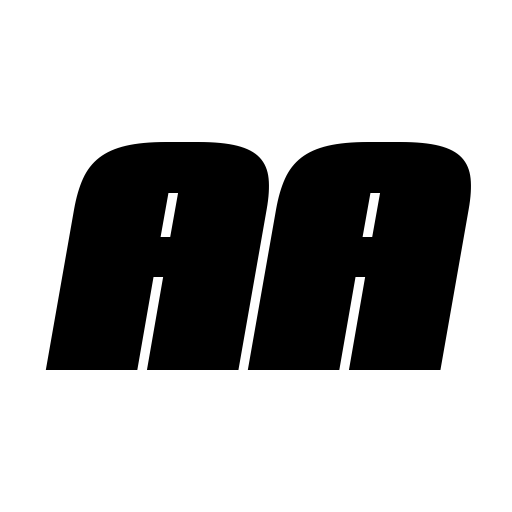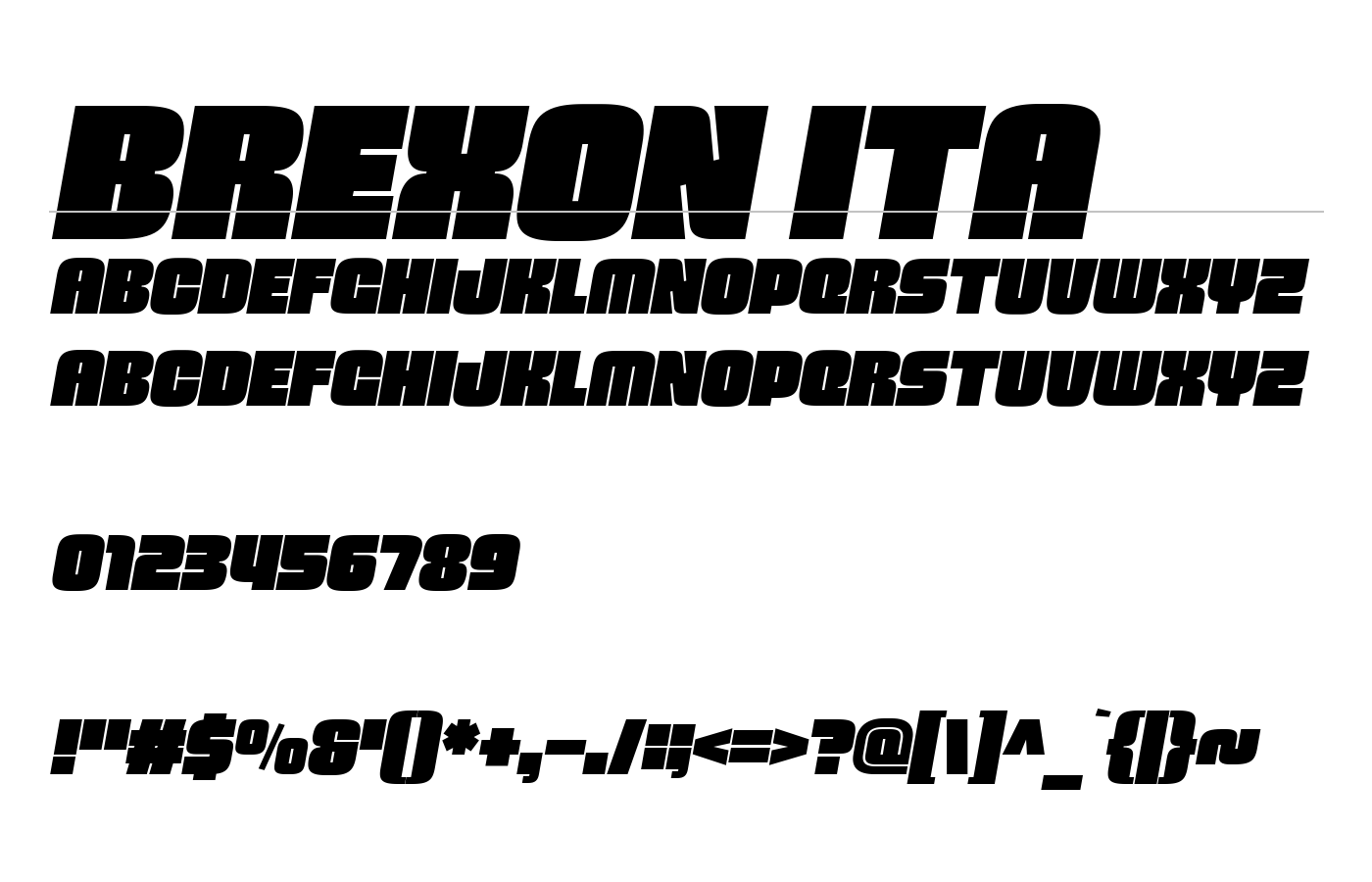
Brexon is a bold, condensed sans serif font with a strong, dynamic presence and a slight forward slant that creates a sense of speed and motion. Its thick, geometric strokes and tight spacing make it ideal for impactful headlines, logos, and branding where a modern, energetic vibe is desired. This font works best in display settings where you want to grab attention and convey power and confidence.
Brexon Font
About Brexon Font